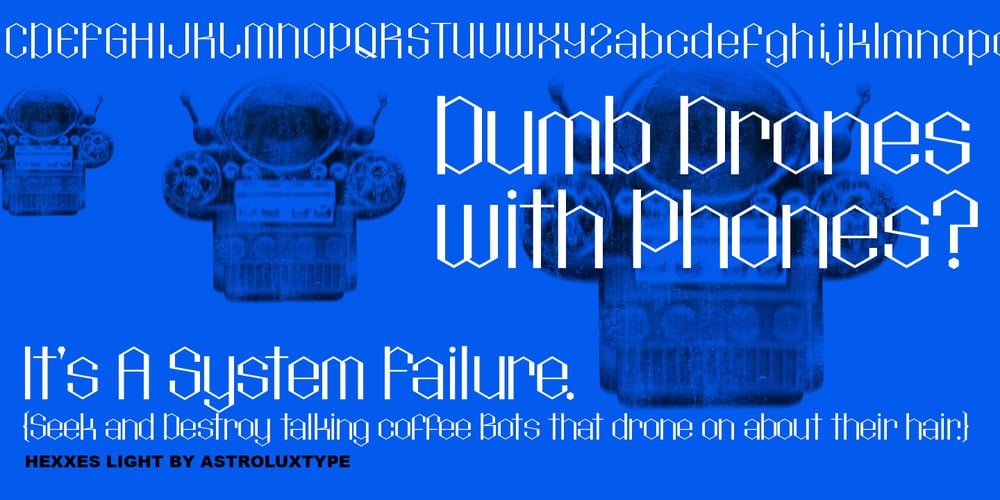
Hexxes Font Family was designed by Glenn Parsons and published by astroluxtype. Hexxes contains 2 styles and family package options. Bold mutant light typography. Futuristic astroluxtype. Digital pixels and hex head wrenches from the toolbox were the influence for this font. Hexxes Light and Hexxes Bold are a minimal font set that includes upper and lowercase letterforms which can be used at various sizes but, we consider it to be a headline/display font, best applied larger than 24 points in size.